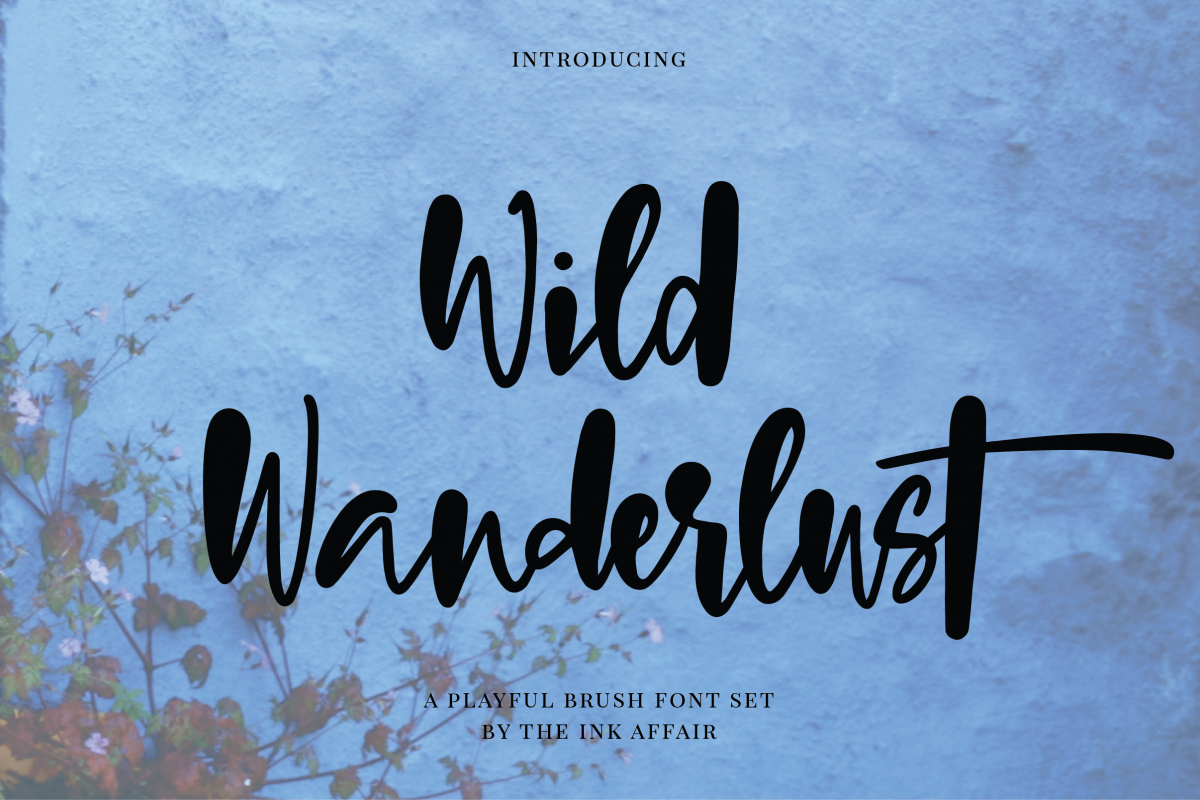
Wild Wanderlust Font
Introducing Wild Wanderlust, a super fun and playful brush font that comes with 2 sets of uppercase and lowercase letters. Wild Wanderlust is perfect for creating logos, social media posts, quotes, branding, invites, wedding stationery and so much more!What's included:
• Wild Wanderlust - includes uppercase and lowercase letters as well as uppercase alt and lowercase alt. Also includes numbers, punctuations, ligatures as well as international language support.
• Wild Wanderlust Alt - includes alternate uppercase and lowercase letters for easy access.